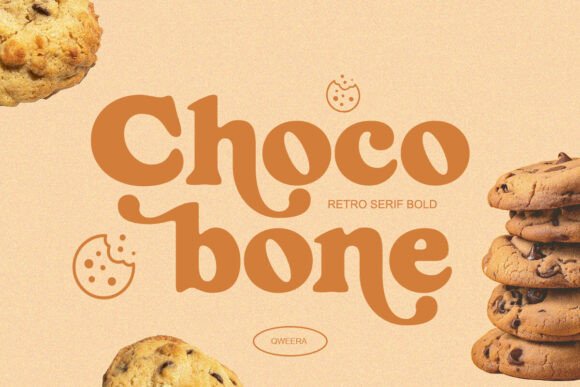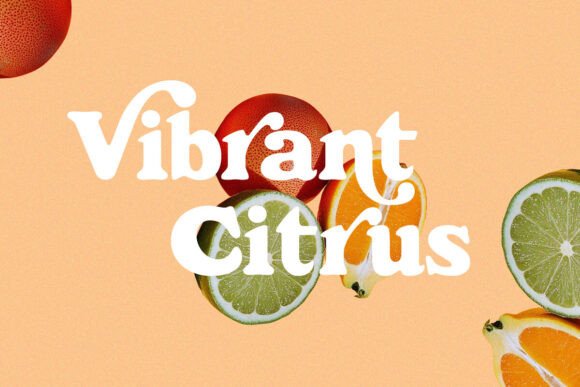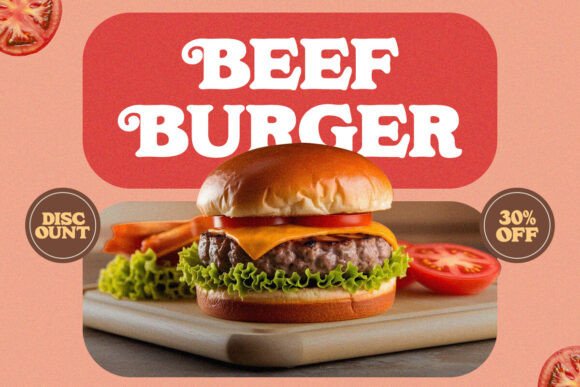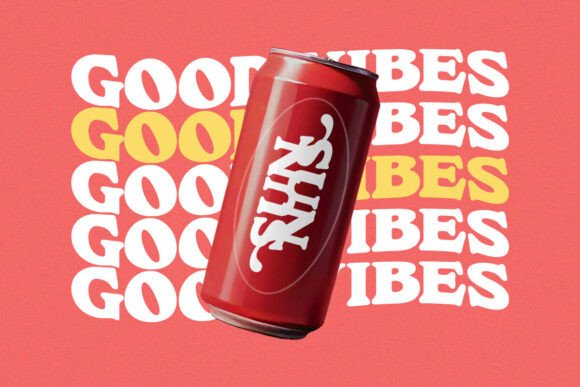
Choco Bone Font: A Bold Retro Serif Display for Sweet Designs!
About the Choco Bone Font
From logos to headlines, the Choco Bone Font is the perfect choice for making a lasting impression. Choco Bone is more than just a font—it’s a bold retro serif display typeface designed to make your designs stand out with confidence and style. With its regular and italic versions, Choco Bone combines the charm of retro aesthetics with modern versatility, making it perfect for branding, logo design, packaging, posters, and more. Whether you’re crafting a vintage-inspired logo or designing a bold poster, this font ensures your work radiates energy and creativity.
Choco Bone Font Usage Examples
Choco Bone Font Example